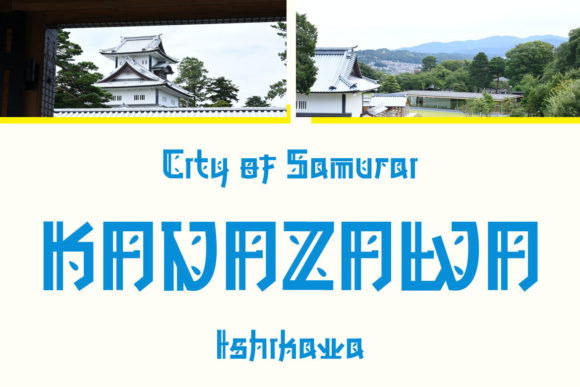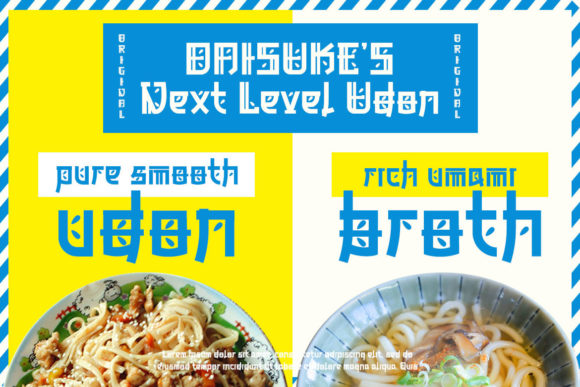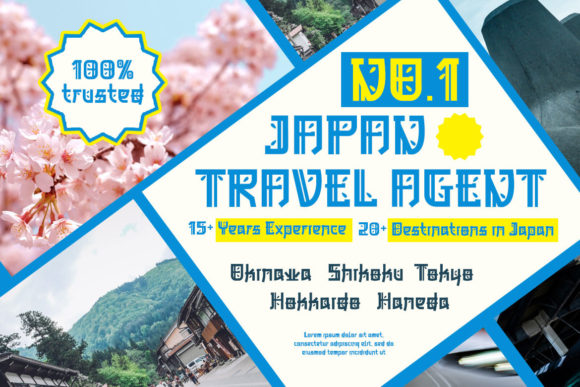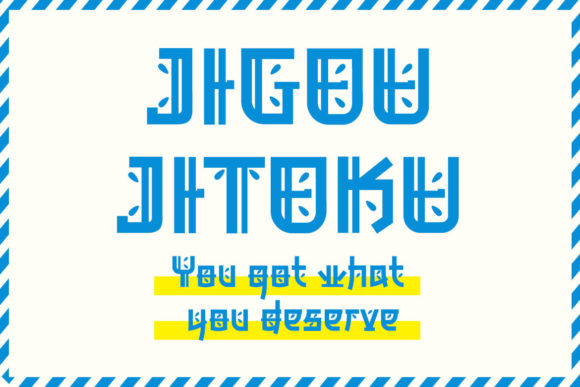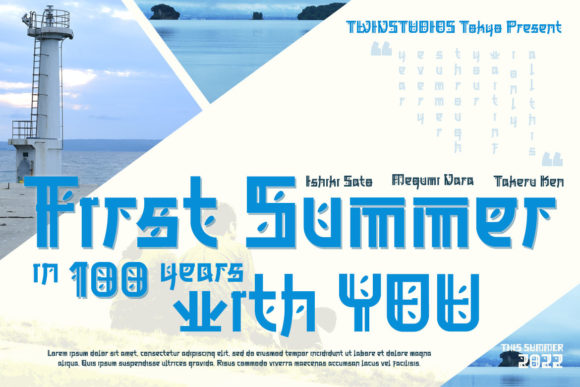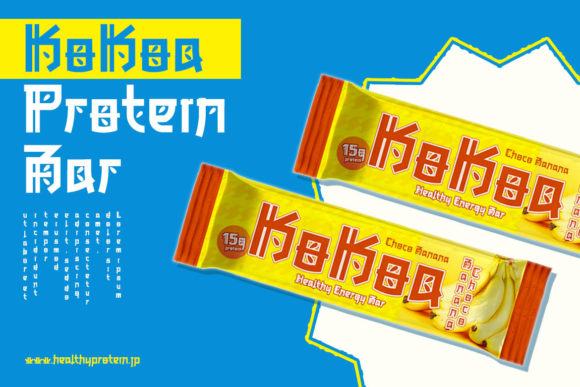
Unlocking the Unique Charm of Bukama Font
Imagine strolling through a bustling Tokyo market, surrounded by vibrant colors and exotic scents. The experience is a feast for the senses, and the typography is no exception. That’s where the Bukama Font comes in – a faux Japanese display font that captures the essence of Asian flair with its distinctive and unusual shape.
Whether you’re a designer looking to add a touch of cultural sophistication to your projects or simply want to make a statement, the Bukama Font is the perfect choice. With its striking graphic display, it’s sure to draw viewers in and leave a lasting impression. From logotypes to book titles, this versatile font can be used in a variety of applications to add a unique and eye-catching element to your designs.
Bukama Font Key Features
- Unique Characteristics: Bukama Font features a unique blend of modern and traditional elements, with intricate details and ornaments that add a touch of elegance and sophistication.
- Font Weight and Style: The font family includes multiple weights, from light to bold, and various styles, such as regular, italic, and bold italic, offering versatility for different design applications.
- Kerning and Ligatures: The font includes advanced kerning and ligature features, ensuring that characters are properly spaced and connected, resulting in a more polished and professional appearance.
Bukama Font Review
As a designer, I was excited to dive into the Bukama Font, a sans-serif typeface with a unique blend of modern and vintage elements. ✨ The font’s clean lines and geometric shapes make it a great choice for digital products, while its subtle imperfections add a touch of personality to print materials.
One of the things that really works well in Bukama is its versatility. ✨ It comes in a range of weights, from light to bold, making it easy to use in a variety of contexts. The font also has a clear and readable character set, which is essential for any typeface.
While Bukama is a solid choice, there are a few limitations to consider. ⚠️ The font’s unique style can be polarizing, and some users may find it too quirky or unconventional for their taste. Additionally, the font’s lack of italics may be a drawback for designers who rely heavily on italic text.
Overall, I’d say Bukama is a great addition to any designer’s toolkit. ✨ While it may not be the perfect choice for every project, its unique blend of modern and vintage elements makes it a great option for designers looking to add some personality to their work.
- Wide range of weights (light to bold)
- Clear and readable character set
- Unique blend of modern and vintage elements
- Lack of italics
Getting the Most Out of Bukama Font
For the best results, use the Bukama font in conjunction with bold or italic styles to create visual interest.
Experiment with different font sizes and colors to find the perfect combination for your design.
The Bukama font is perfect for:
1. Creating eye-catching headings and titles.
2. Adding a touch of elegance to your designs.
3. Creating a cohesive brand identity.